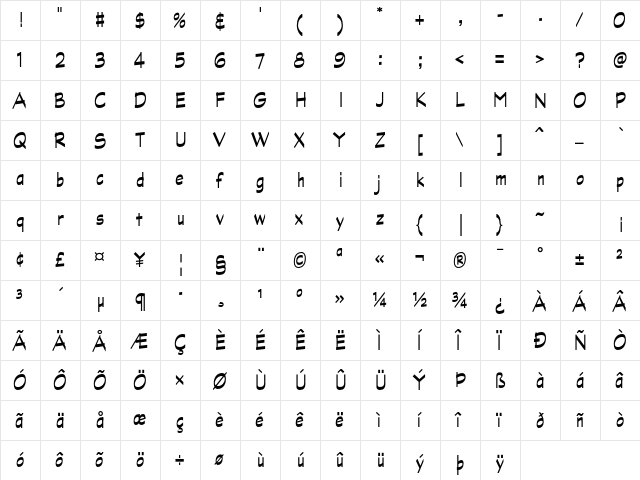
Graphite AT Narrow Bold Regular
| Foundry | Miles Inc |
Design Context for Graphite AT Narrow Bold Typeface
Graphite AT Narrow Bold is a composed and adaptable typeface that performs quietly and consistently across a wide range of design contexts. Its bold stroke weight gives it real presence on the page. The condensed width makes it efficient for tight spaces without sacrificing legibility.